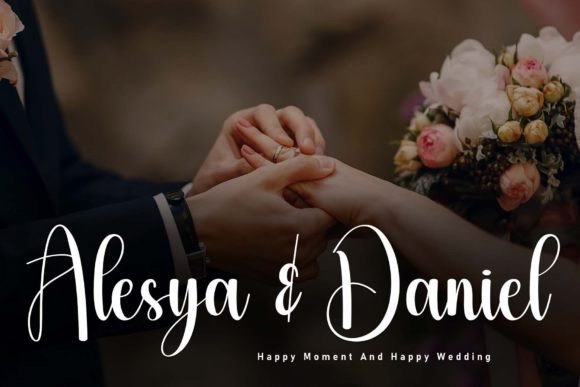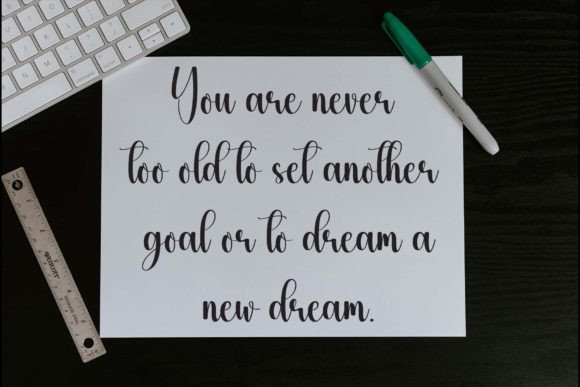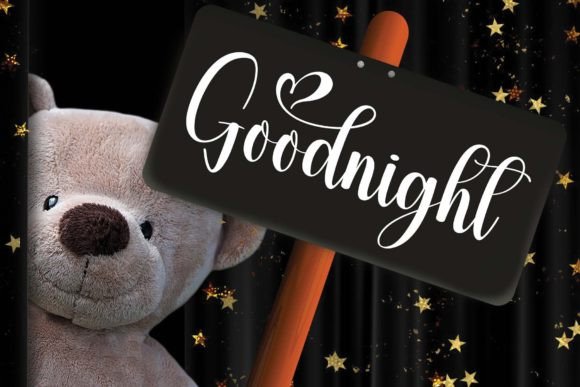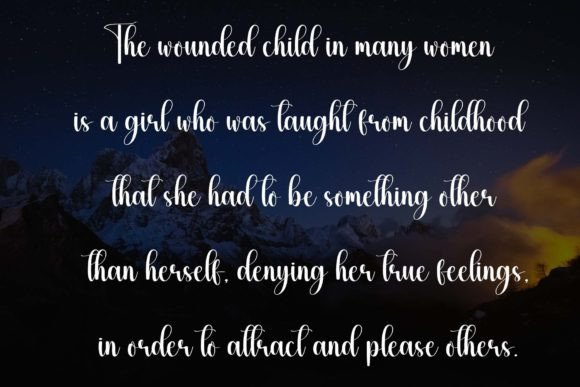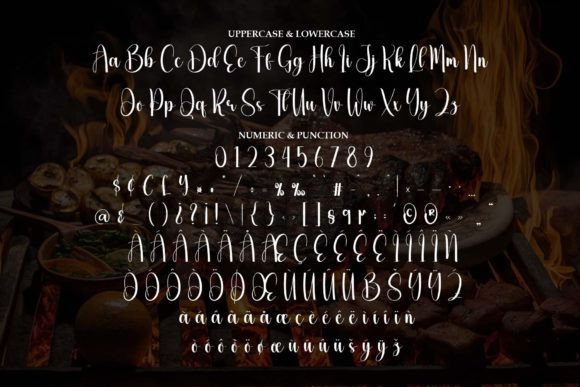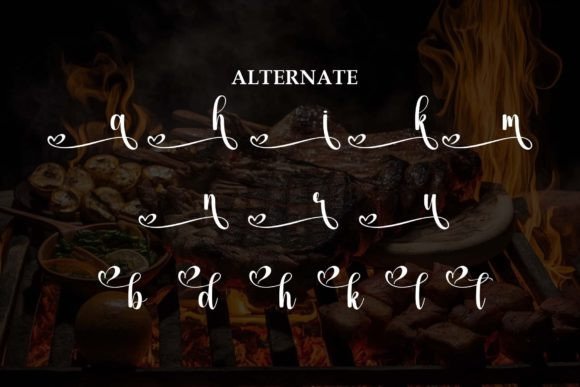
Introducing Barbecue Font: The Perfect Addition to Your Design Arsenal
Are you tired of using the same old fonts for your design projects? Look no further! Barbecue Font is here to revolutionize your creative endeavors with its unique, flowing handwritten style. This elegant font is perfect for designers, crafters, and anyone looking to add a touch of sophistication to their work.
The Characteristics of Barbecue Font
Barbecue Font is described by its incredibly distinct and timeless style. Its flowing handwritten script is reminiscent of classic calligraphy, but with a modern twist. The font features:
- Elegant and smooth lines
- Unique letterforms and connections
- Timeless and sophisticated style
Why Choose Barbecue Font?
So, why should you choose Barbecue Font for your next project? Here are just a few reasons:
- Versatility: Barbecue Font is perfect for a wide range of design projects, from wedding invitations and branding materials to social media graphics and blog posts.
- Elegance: The font’s elegant style adds a touch of sophistication to any design, making it perfect for high-end brands and luxury products.
- Readability: Despite its ornate style, Barbecue Font is highly readable, making it perfect for body text and headlines.
How to Use Barbecue Font in Your Designs
Barbecue Font is incredibly easy to use, even for those who are new to design. Here are a few tips to get you started:
- Pair it with a sans-serif font: For a classic look, pair Barbecue Font with a sans-serif font like Arial or Helvetica.
- Use it for headlines and titles: Barbecue Font is perfect for headlines and titles, adding a touch of elegance and sophistication to your design.
- Experiment with colors and textures: Don’t be afraid to experiment with different colors and textures to add depth and interest to your design.
Perfect for Crafters and Designers
Barbecue Font is not just perfect for designers, but also for crafters and DIY enthusiasts. Whether you’re creating:
- Handmade cards and invitations
- Custom jewelry and accessories
- Personalized gifts and decorations
Barbecue Font is the perfect addition to your creative arsenal.
In conclusion, Barbecue Font is a must-have for any designer, crafter, or DIY enthusiast looking to add a touch of elegance and sophistication to their work. With its unique, flowing handwritten style and versatility, this font is perfect for a wide range of design projects. So why wait? Fall in love with Barbecue Font and start creating spectacular designs today!